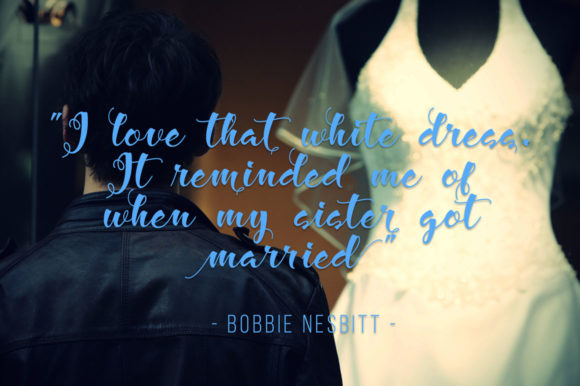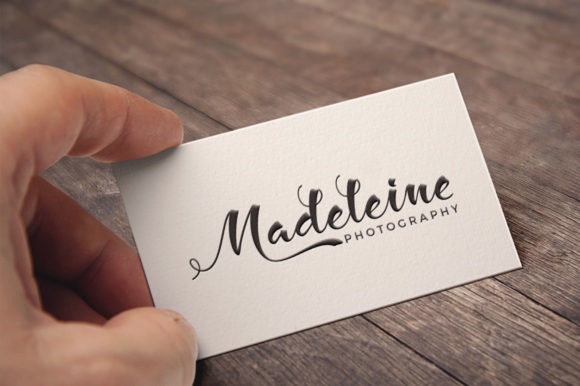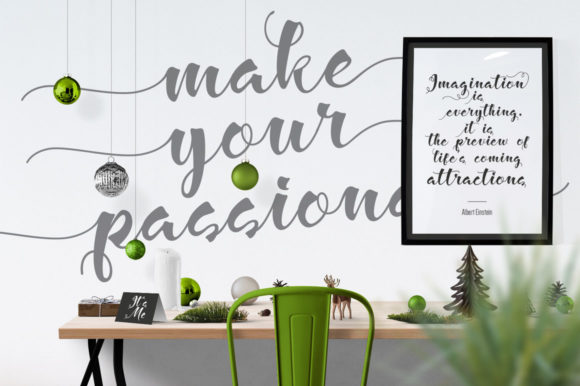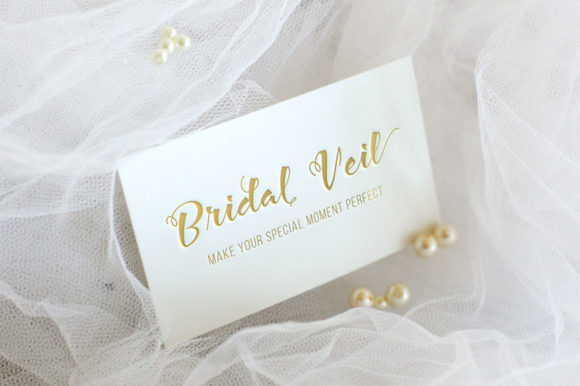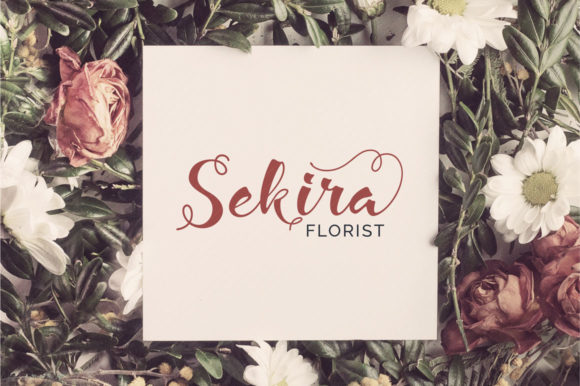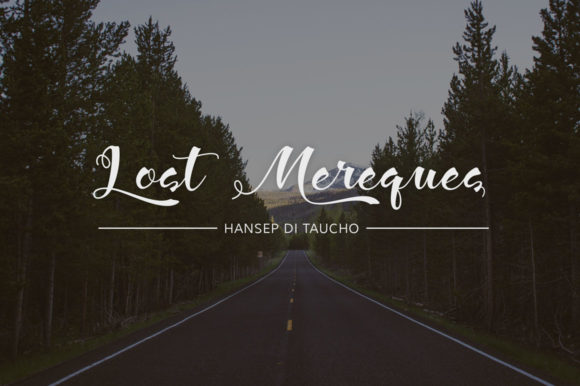
Discover the Timeless Charm of Entihay Font
Have you ever been working on a creative project, pouring your heart and soul into it, and then suddenly, the perfect font comes along and takes it to the next level? That’s exactly what happened to me when I stumbled upon the Entihay Font. Its sweet style and lovely lettering had an instant impact, and I knew I had to share it with fellow designers and crafters.
Entihay Font is a classic crafting font designed to elevate any creative idea. With its elegant curves and subtle flair, it adds a touch of sophistication to any project. Whether you’re designing a wedding invitation, a logo, or a children’s book, Entihay Font is sure to bring a sense of warmth and personality to your work.
Entihay Font Key Features
- Font Size: The font size is 1,000 glyphs, providing a comprehensive set of characters and symbols for diverse language support.
- Language Support: The font supports multiple languages, including Amharic, English, and other languages that use the Ge’ez script, catering to a wide range of users.
- Unique Characteristics: Entihay Font features a unique, elegant design that blends traditional and modern elements, making it an excellent choice for creative projects and branding.
Review of Entihay Font
As a designer, I was excited to try out the Entihay font and see how it would perform in various projects. Overall, I found it to be a solid choice with some nice features. ✨
- Unique aesthetic – Entihay font has a distinctive look that sets it apart from other fonts. It’s a great choice for projects where you want to add a touch of elegance and sophistication.
- Legibility – Despite its unique design, Entihay font is surprisingly legible, making it a great choice for body text and long blocks of text.
- Wide language support – Entihay font supports a wide range of languages, including many non-Latin scripts, making it a great choice for global projects.
- Limited font weights ⚠️ – Entihay font only comes in a limited range of weights, which can make it difficult to create complex typographic hierarchies.
- No italic or bold-italic styles ⚠️ – While Entihay font has a nice range of upright styles, it lacks italic and bold-italic styles, which can be limiting in certain projects.
Overall impression:
Entihay font is a solid choice for designers looking for a unique and elegant font. While it has some limitations, its wide language support and legibility make it a great choice for a wide range of projects. With some careful planning and styling, Entihay font can be a great addition to any design project.
Tips for Getting the Most Out of Entihay Font
To get the most out of the Entihay Font, use it for:
- Headings and titles to add a touch of elegance and sophistication.
- Body text to create a cohesive and visually appealing design.
- Logos and branding to establish a unique and recognizable identity.
The Entihay Font is commonly used for:
- Business cards and marketing materials.
- Design projects that require a touch of elegance and sophistication.
Alternatives to Entihay Font
Entihay Font is a modern sans-serif font known for its clean and minimalistic design. However, for designers seeking alternatives, there are several options available. Here are a few:
Inter Font
Inter Font is a highly legible sans-serif font designed by Rasmus Andersson. It is suitable for digital use, particularly in web design and mobile applications. Inter Font is similar to Entihay Font in its clean and modern aesthetic, but it has a more rounded feel and a slightly larger x-height.
For optimal results, we recommend using the Entihay Font at a minimum size of 12 points and a resolution of 300 DPI. This will ensure that the font renders clearly and smoothly, even at larger sizes.
Can I customize the Entihay Font for my specific design project?
Yes, the Entihay Font is fully editable, allowing designers to customize the font to suit their specific needs. You can use font editing software such as Adobe Illustrator or FontLab to make adjustments to the font’s spacing, kerning, and other characteristics.